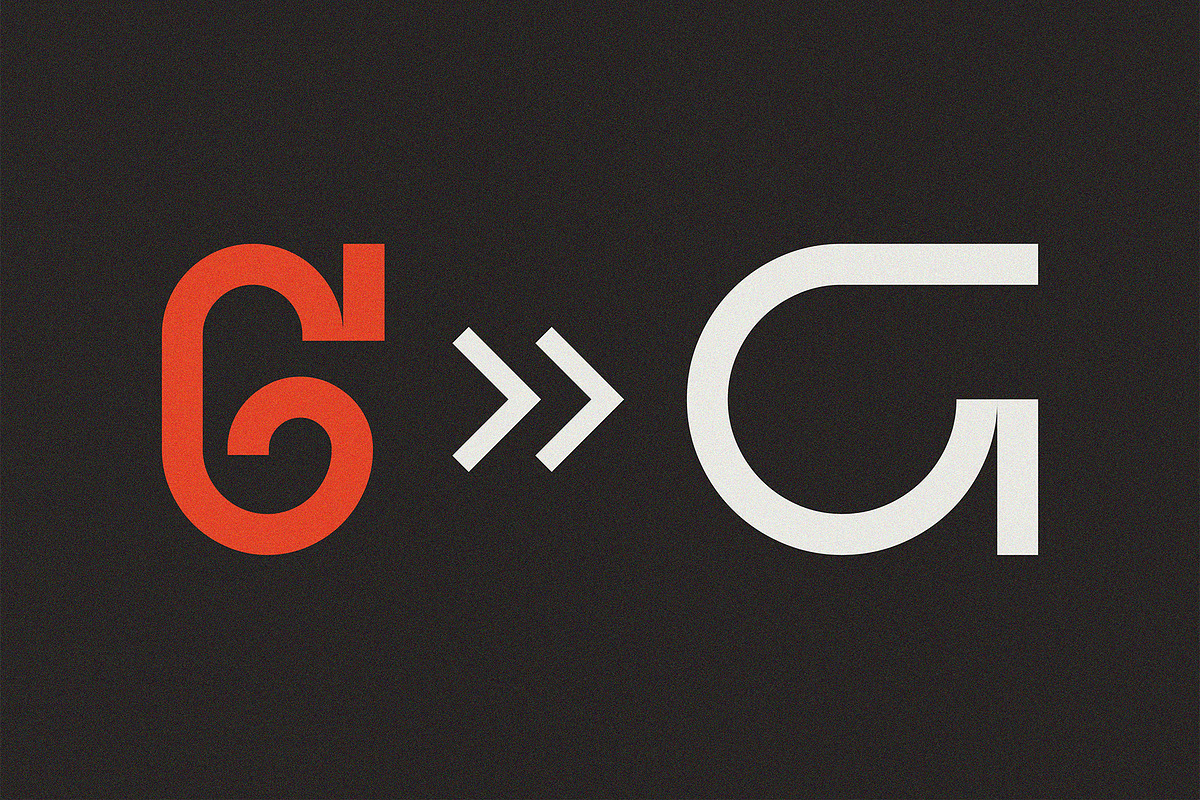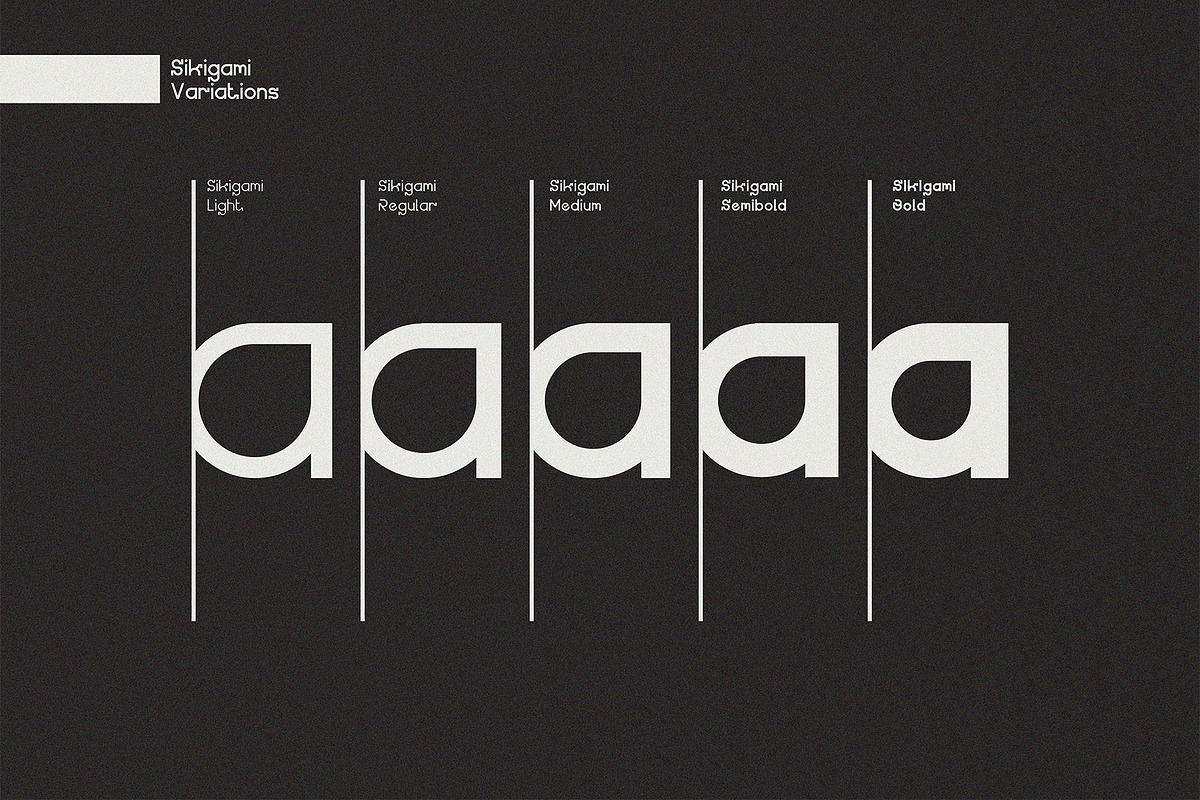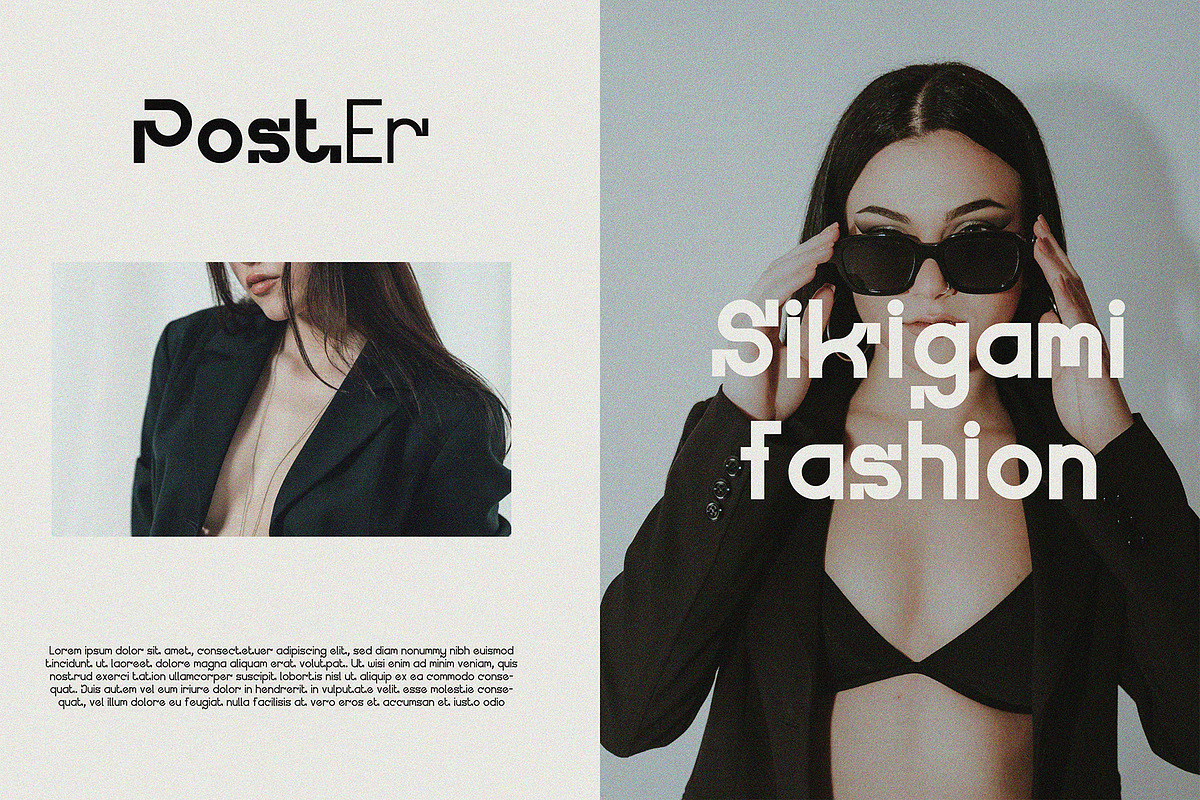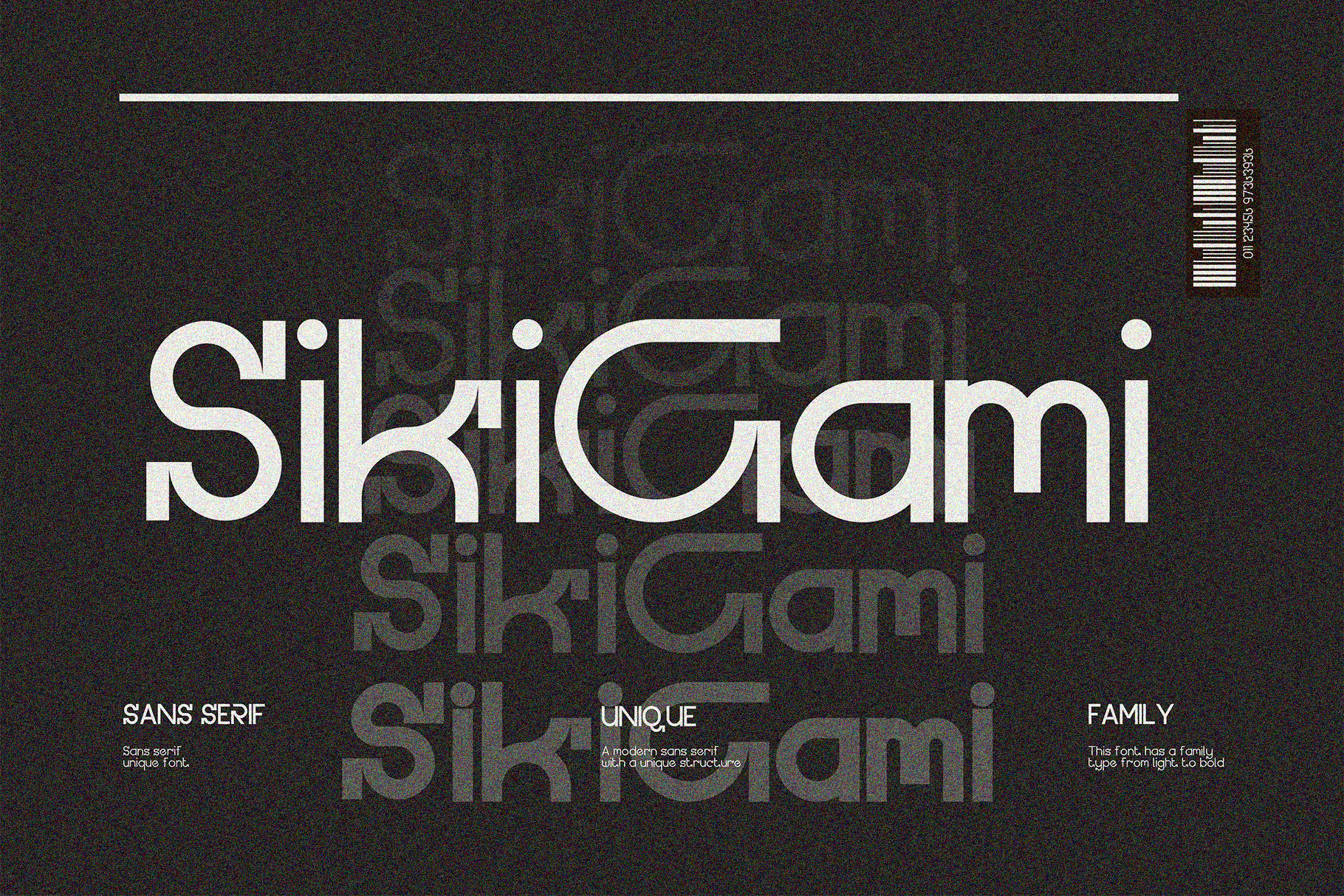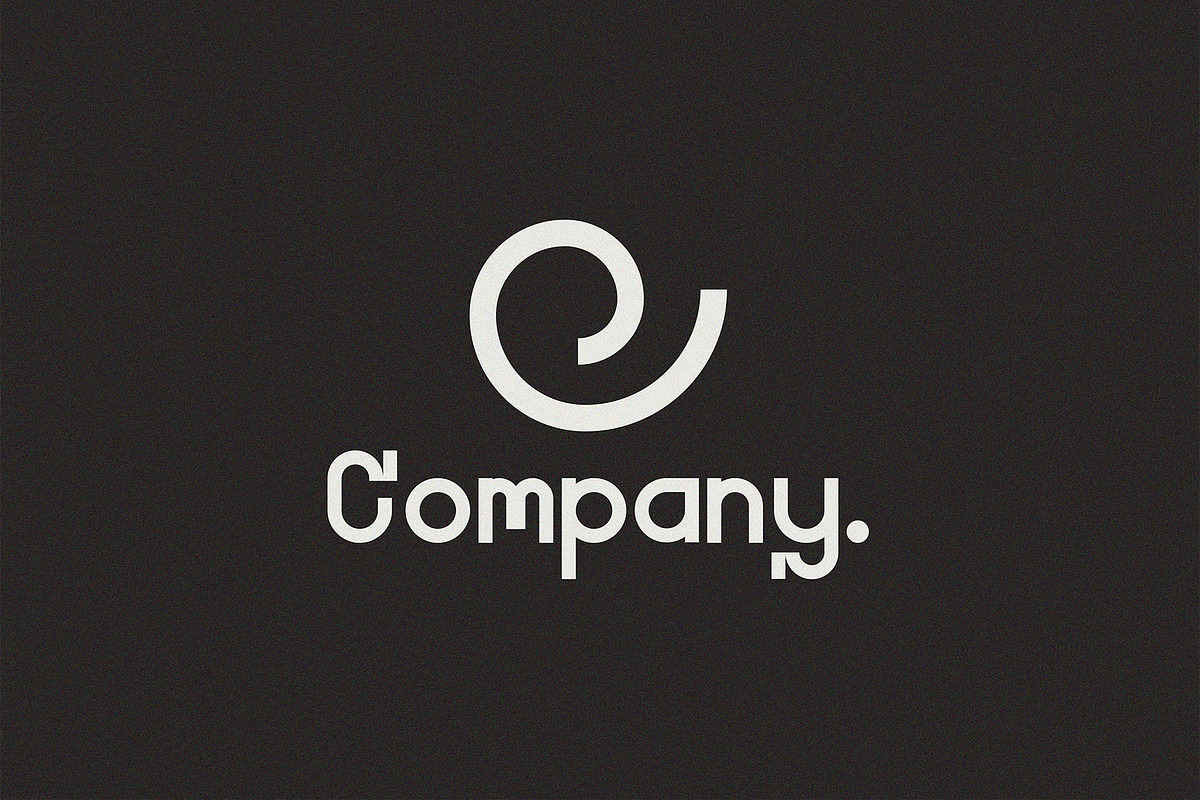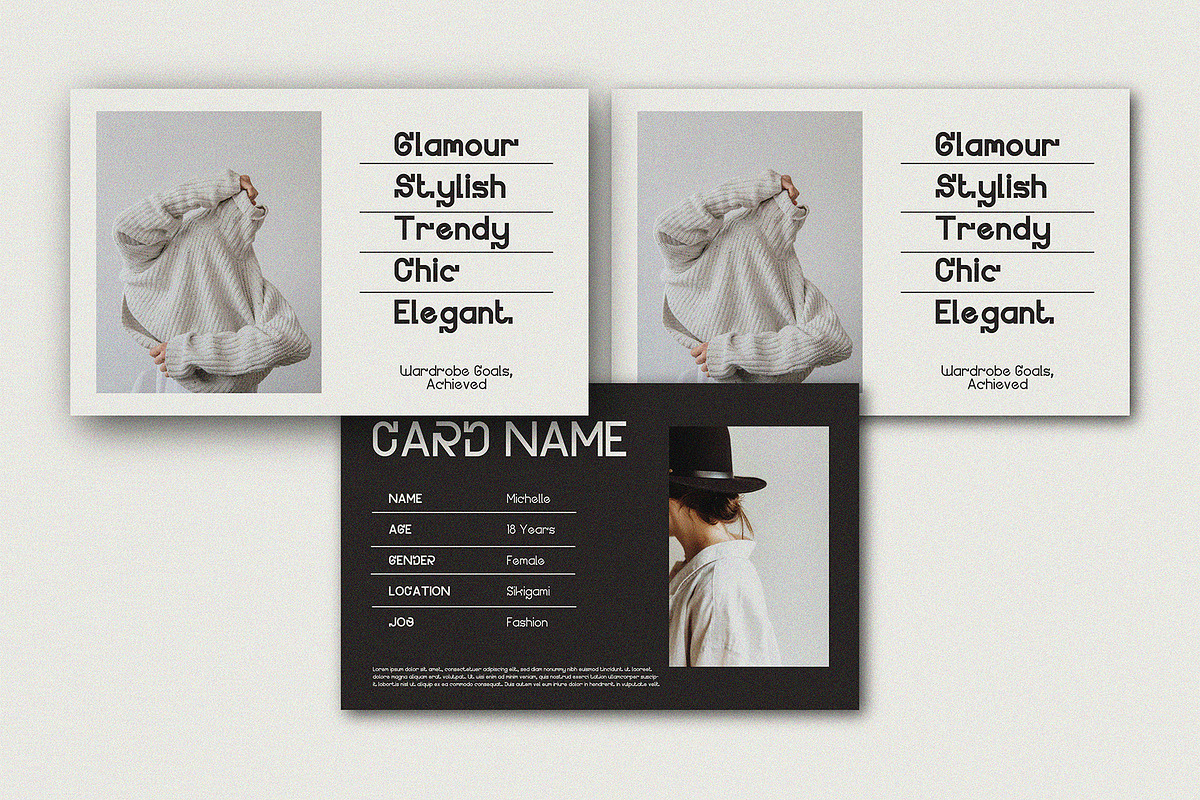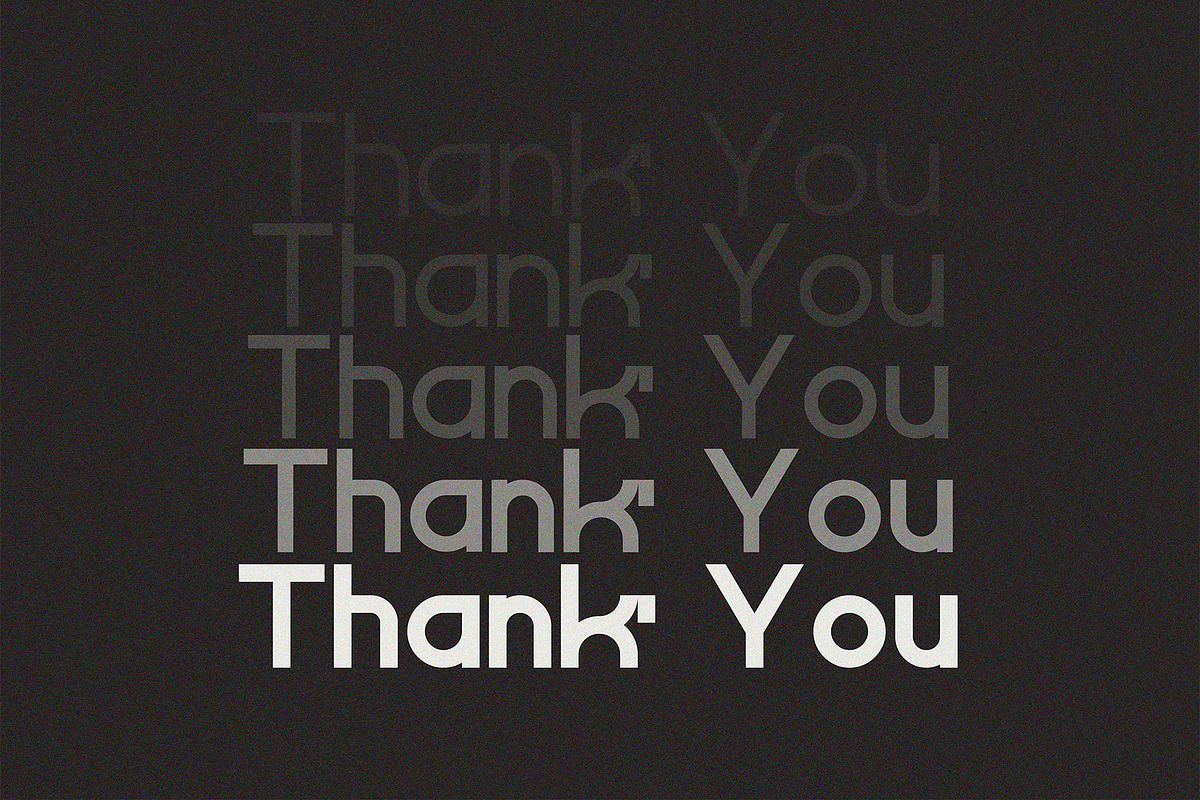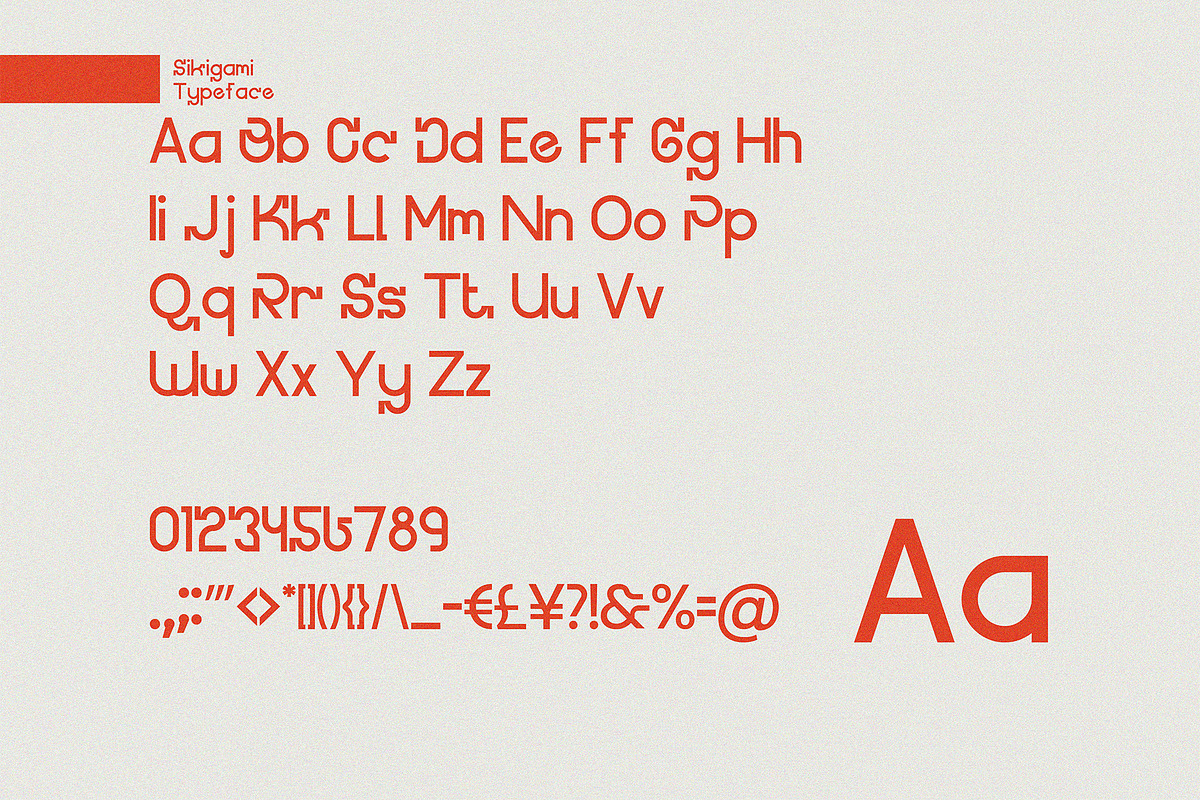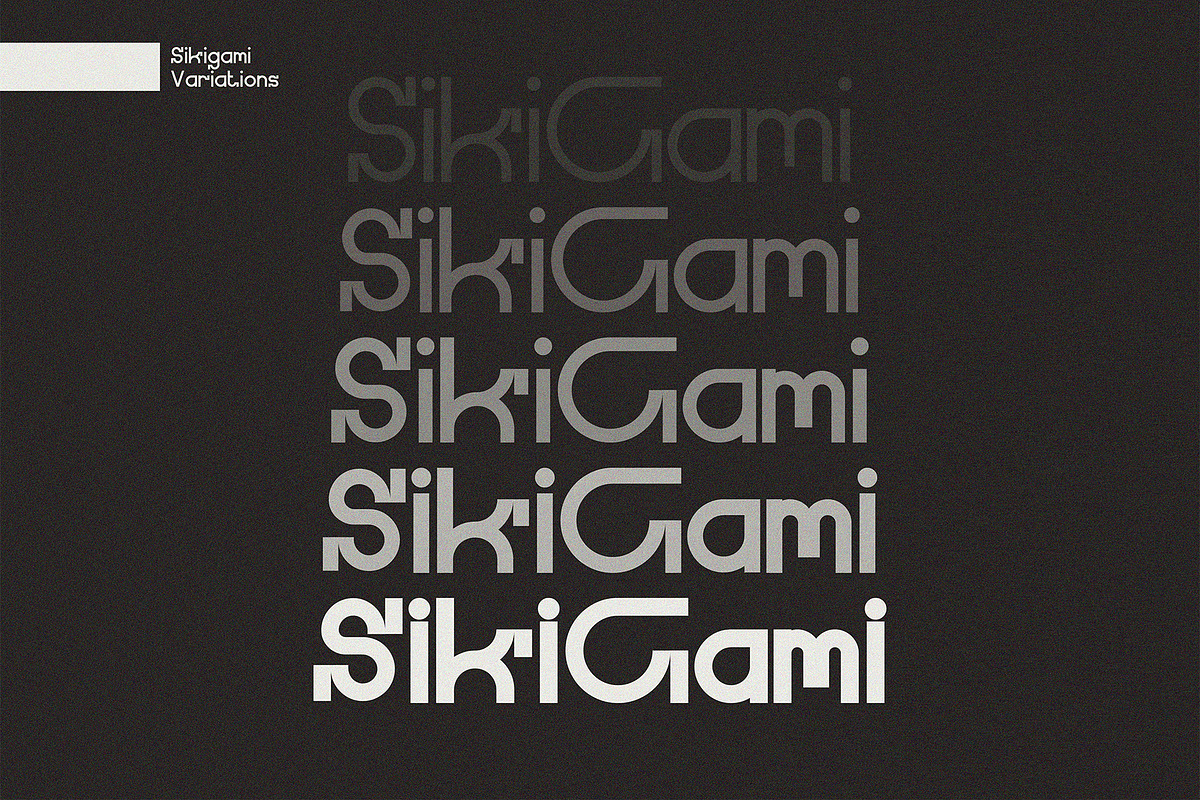
Sikigami - Family Font
Sikigami is a fresh, unique, geometric sans serif font family, the Sikigami font has a neat shape, and has a unique shape that can be seen in the image above, this font is suitable for posters, magazines, design presentations, logos, branding, websites, etc. and is very suitable for themes such as fashion or sports.